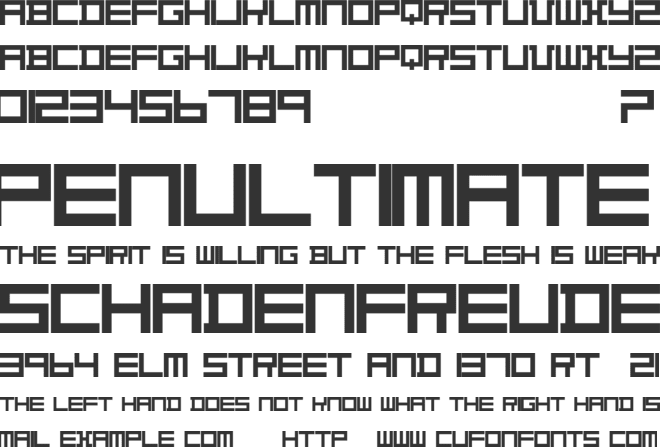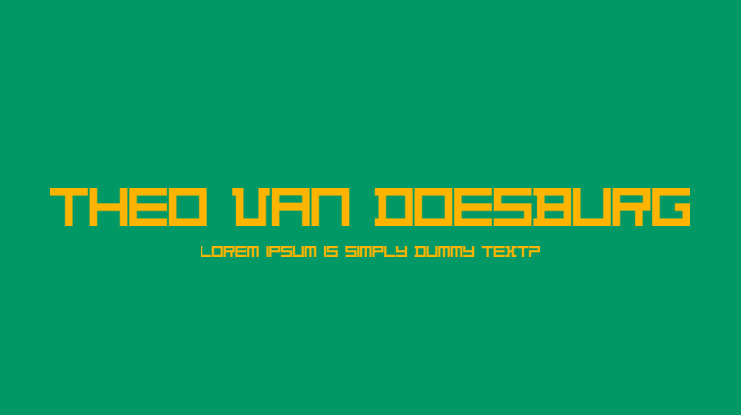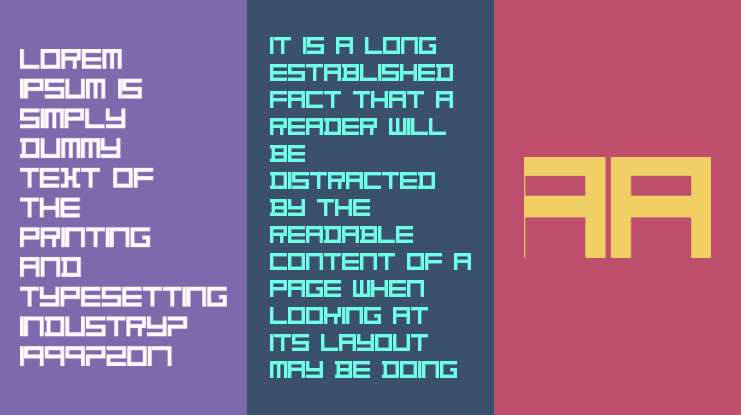
Theo Van Doesburg Font
The Theo Van Doesburg 1917 alphabet... Those Designers and artist who love the De Stijl Movement must have this font.
Diseño de Theo Van Doesburg por Gonzalo Carretero
Alfabeto de Theo Van Doesburg. 2001 Gonzalo Carretero